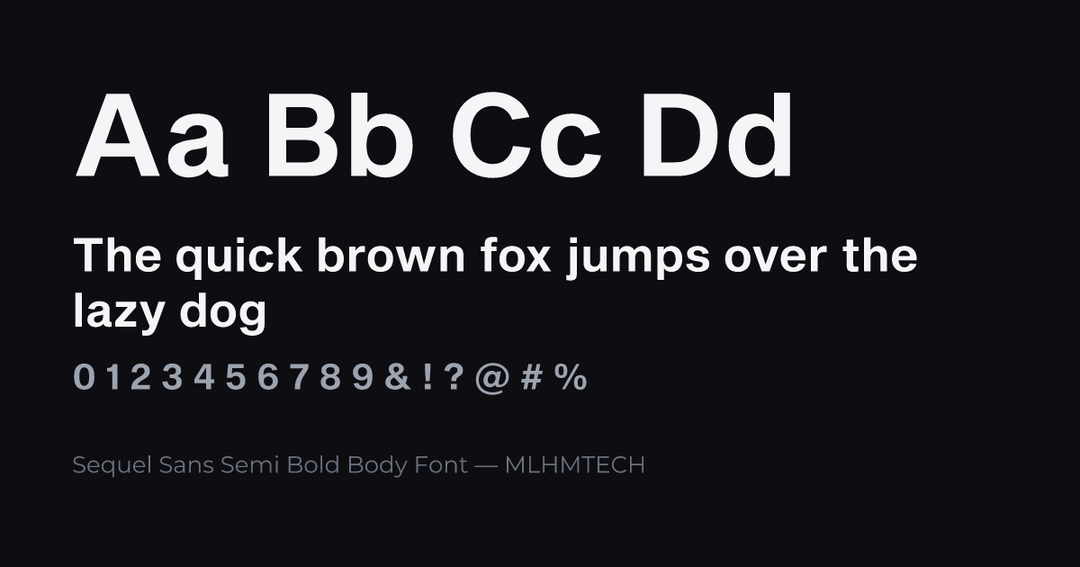
Sequel Sans Semi Bold Body Font
Sequel Sans Semi Bold Body is a versatile sans-serif font with a modern, clean look, ideal for body text and headlines.
Sequel Sans Semi Bold Body is part of the Sequel Sans family, known for its geometric yet humanist design. This semi-bold weight offers excellent legibility at various sizes, making it perfect for both digital and print applications.
Its clean lines and balanced proportions give a contemporary feel, suitable for branding, editorial design, and user interfaces. The font includes a comprehensive character set, supporting multiple languages.
Whether you're designing a website, a logo, or a document, this font adds a touch of professionalism and clarity.